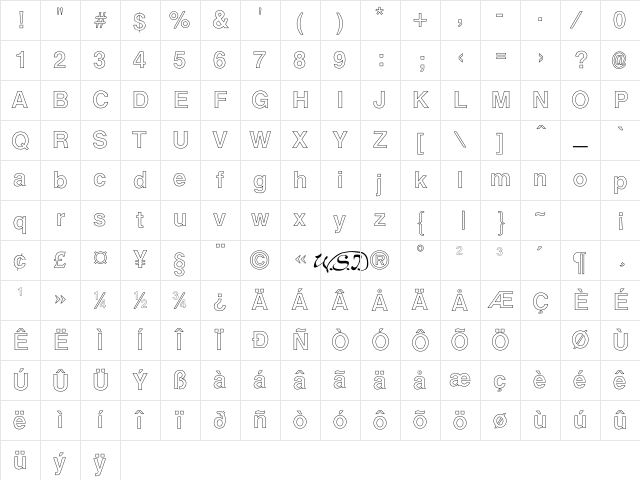
Arena Outline Regular
Arena Outline Family
Design Context for Arena Outline
Arena Outline is built around its visual character rather than neutral utility - its distinctive forms are designed to make an impression at display sizes.
Font Pairing: Pair with a clean neutral sans-serif for body copy to let Arena Outline's character lead without overwhelming the composition.
Pro Tip: Use Arena Outline exclusively at display sizes - it was designed to be seen, not read at length. Let a neutral companion handle body copy.